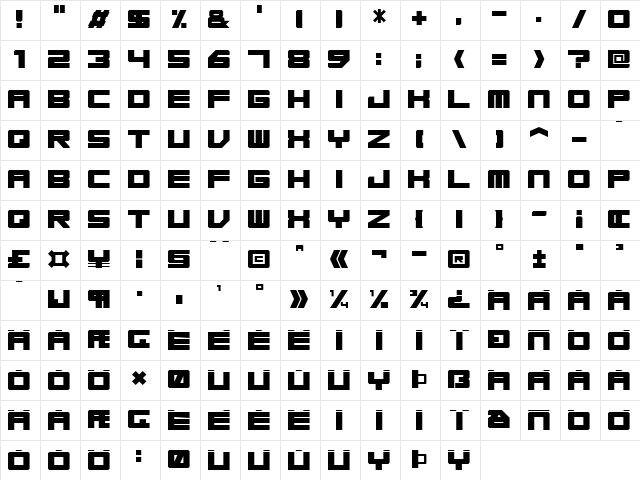
Base45 is a composed and adaptable typeface that performs quietly and consistently across a wide range of design contexts.
Pro Tip: Use Base45 in both headline and body roles to test its range before committing to a single application.